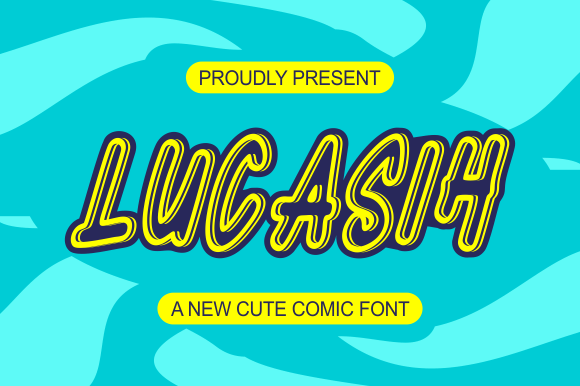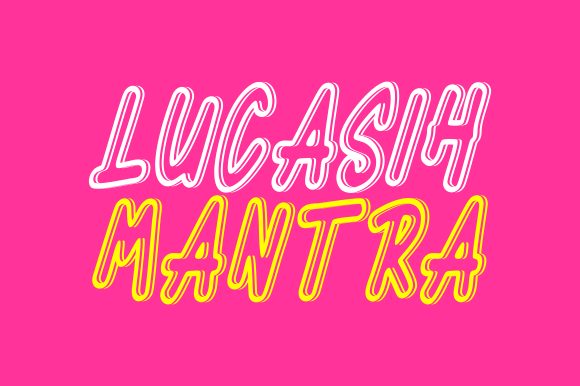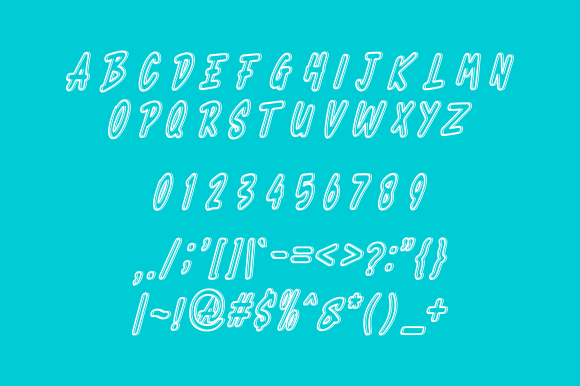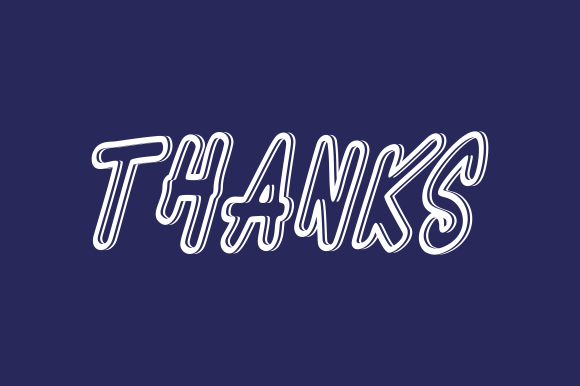
Lucasih
Lucasih: A Bold and Unique Outlined Slab Serif Font
Lucasih is a bold and unique outlined slab serif font. Its modern and playful characters will make your creations stand out every time!
Key Features of Lucasih
• Bold Design: Offers a strong and impactful look suitable for various applications.
• Outlined Style: Features distinctive outlined characters that add a unique visual element.
• Slab Serif Structure: Incorporates slab serifs for added character and style.
• Modern and Playful: Brings a contemporary and fun feel to designs.
Ideal Uses for Lucasih
Lucasih’s unique characteristics make it particularly well-suited for:
When incorporating Lucasih into your designs, consider these tips:
• Use for headlines or short blocks of text to showcase its bold, outlined style.
• Experiment with different sizes to highlight the font’s unique features.
• Utilize its playful appearance to create designs that stand out and capture attention.
Lucasih is an excellent choice for designers looking to add a bold and unique outlined slab serif font to their typographic toolkit. Its ability to make creations stand out makes it a valuable asset in the world of typography. Whether you’re working on eye-catching headlines, creating playful logos, or developing content that requires a modern and fun touch, Lucasih offers the perfect blend of boldness and uniqueness.
Furthermore, Lucasih’s distinctive design allows it to shine in various contexts where grabbing attention is key. From creative poster designs to unique product packaging, this font can elevate your projects with its standout style. Its bold and playful appearance works particularly well in designs that aim to make a strong visual impact and leave a lasting impression.
In conclusion, Lucasih is a font that truly captures the essence of modern, playful design with its bold outlined slab serif style. Its ability to make creations stand out showcases its potential to add a unique flair to various creative projects. For those looking to add a touch of distinctive charm to their work, Lucasih can enhance themed creations with its eye-catching style. It’s the perfect choice for designers seeking to make a bold, memorable impact across a wide range of creative projects.